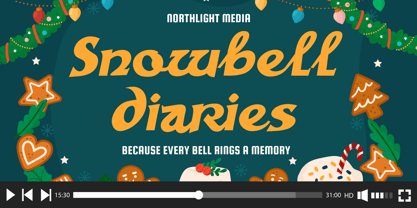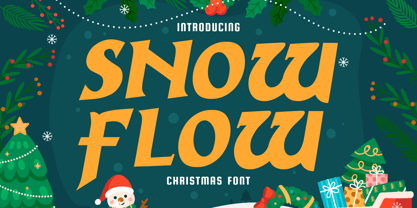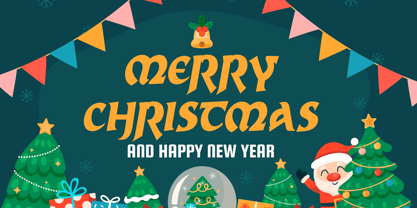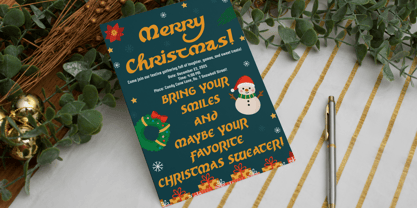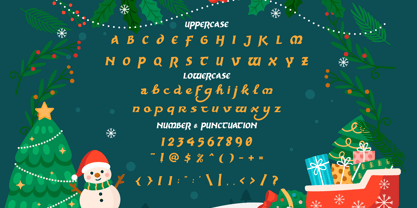
Snow Flow
by Shanaf
The Snow Flow Font Family was designed by Yesie Erma Yunita and published by Shanaf. Snow Flow contains 1 styles. More about this family
Snow Flow Christmas Font brings a cheerful seasonal spirit through bold strokes, rounded terminals, and soft flowing shapes. The letterforms feel lively with medium-high contrast and gentle curves that move like drifting snow. Each character blends playful holiday energy with a friendly script style that stays easy to read in both large and small layouts. The overall structure leans toward a handcrafted look with smooth edges and balanced weights, giving every word an inviting winter touch. These shapes make the font ideal for festive branding, joyful greetings, and holiday-themed creative projects that need a warm mood. Snow Flow Christmas Font adds personality through its curved tops, expressive tails, and slightly slanted silhouettes that enhance movement and rhythm. The font works well for logo design, seasonal branding, posters, product packaging, book covers, stickers, event invitations, movie titles, social media ads, and other winter or Christmas projects. Its bold yet charming form helps headlines stand out while keeping a friendly tone. Designers can rely on its consistent structure to create clean layouts for both print and digital needs. The energetic curves and stylized proportions provide a unique seasonal appearance that elevates holiday campaigns. With multilingual support and complete character coverage, Snow Flow Christmas Font gives creators a dependable and expressive typography tool crafted for joyful celebrations.
Designers: Yesie Erma Yunita
Foundry: Shanaf